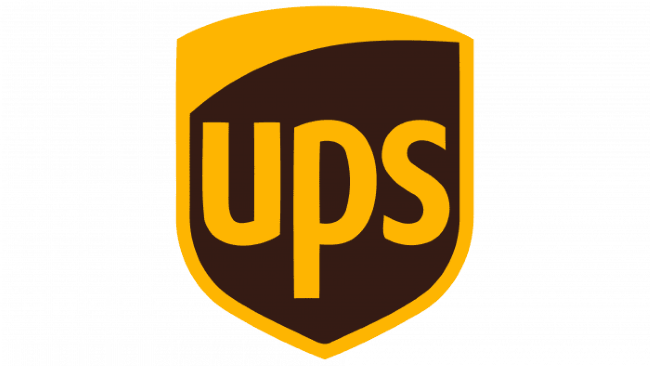
UPS font
UPS font — a bold, custom sans-serif designed for maximum legibility and authority — is the typography of a logistics brand whose entire operational proposition is reliability at scale: if a package is entrusted to UPS, it will arrive, and the typography communicates that same institutional confidence in the same terms as the distinctive brown trucks that have made the brand one of the most recognisable in American commerce. The freely available UPS Font approaches this solid, professional logistics authority.